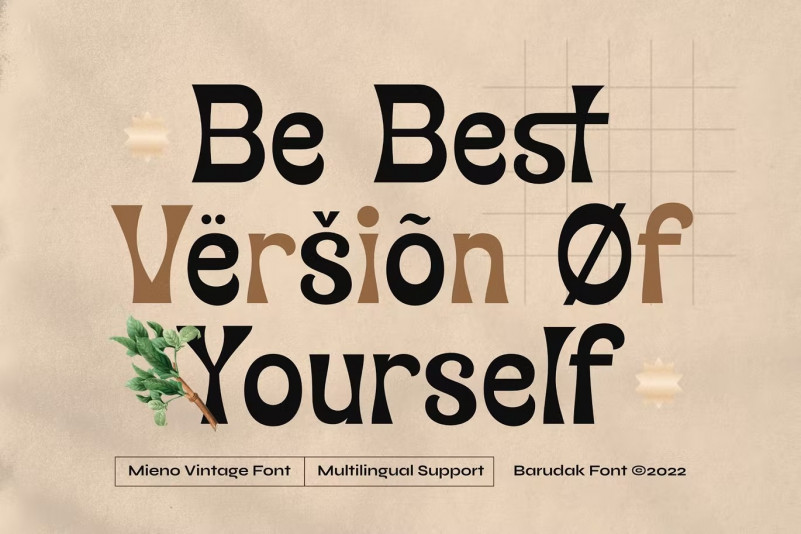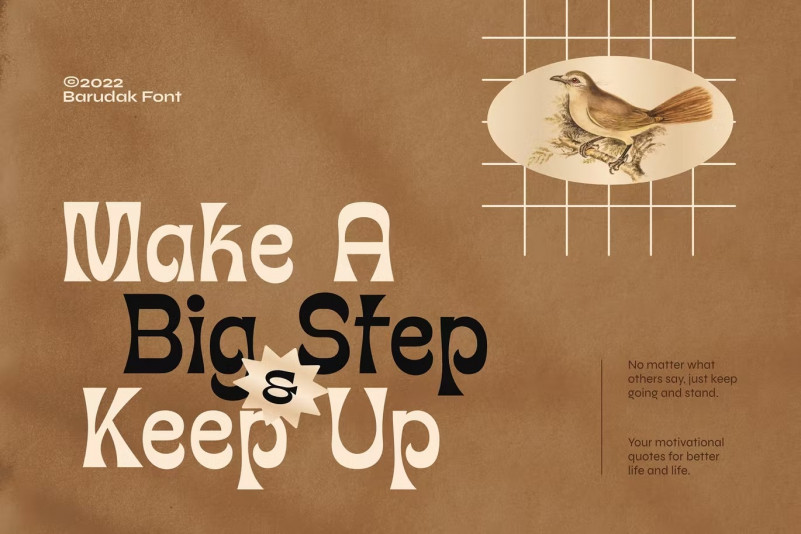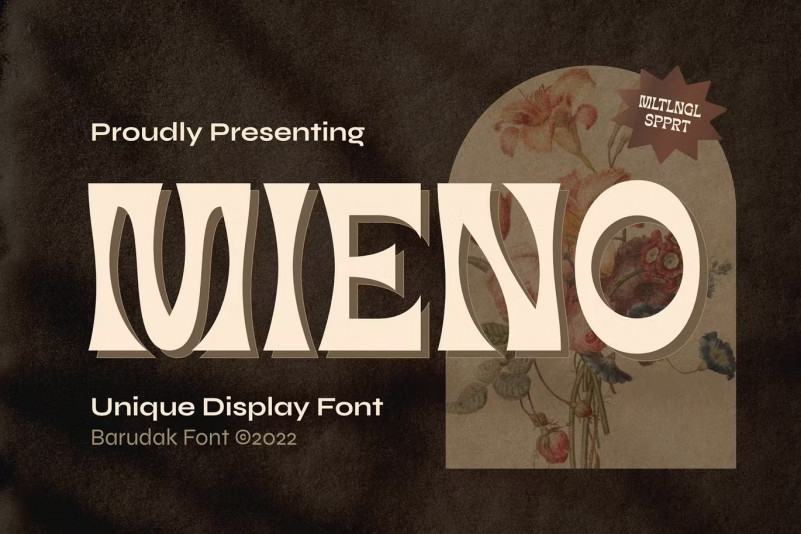
Mieno Font
Mieno – Serif Display Font. You can creatively edit and use this illustration set on merchandise, logo, sticker, patches, badge, and many more.